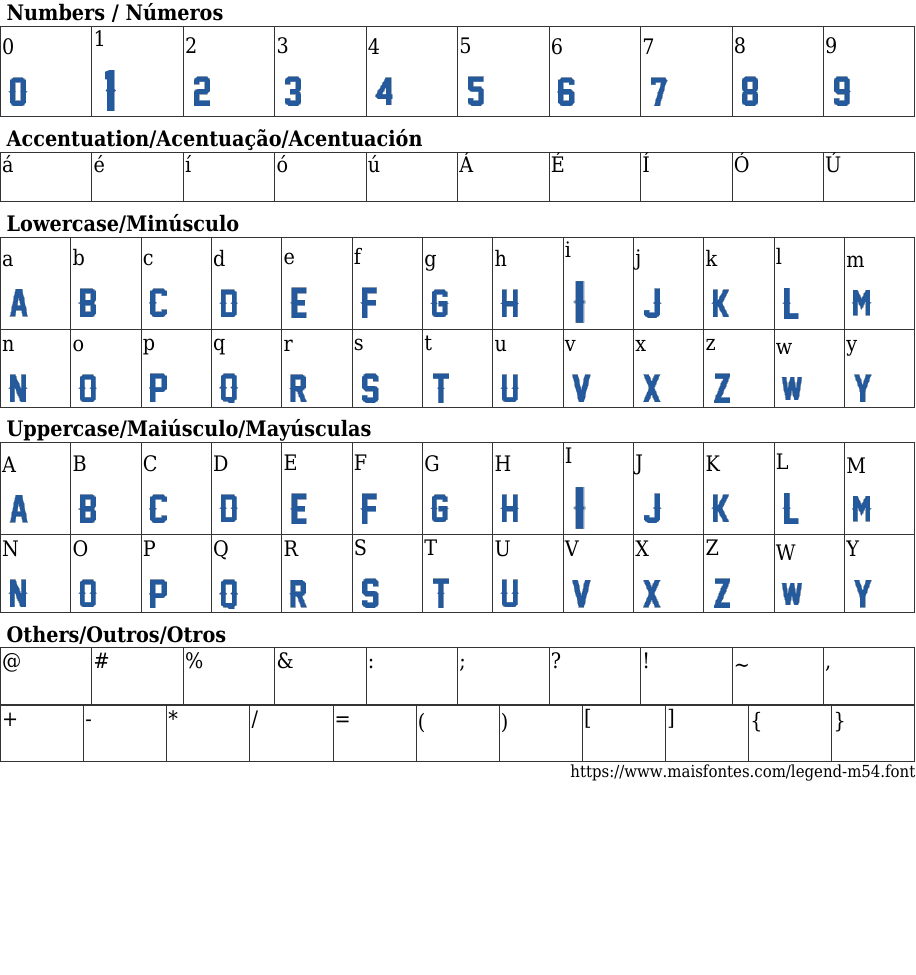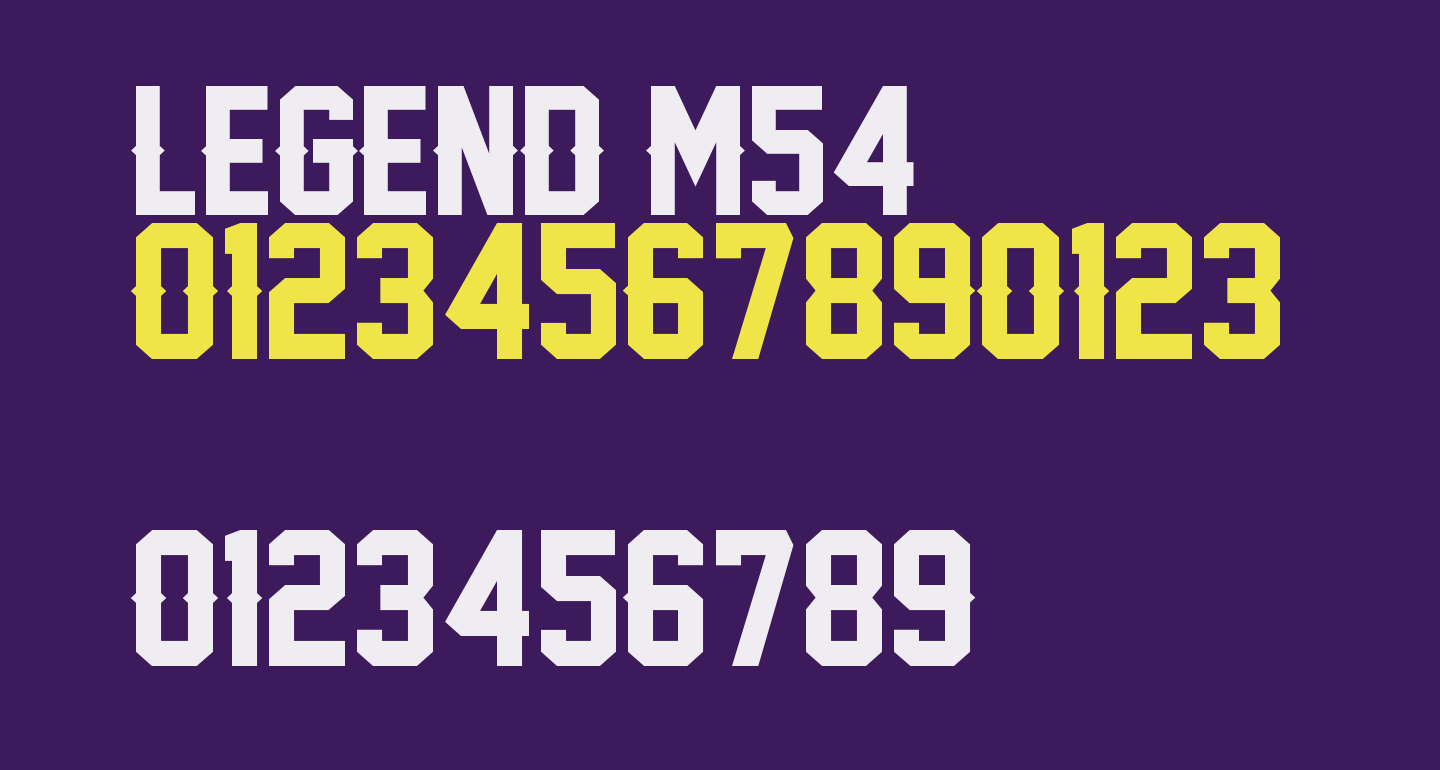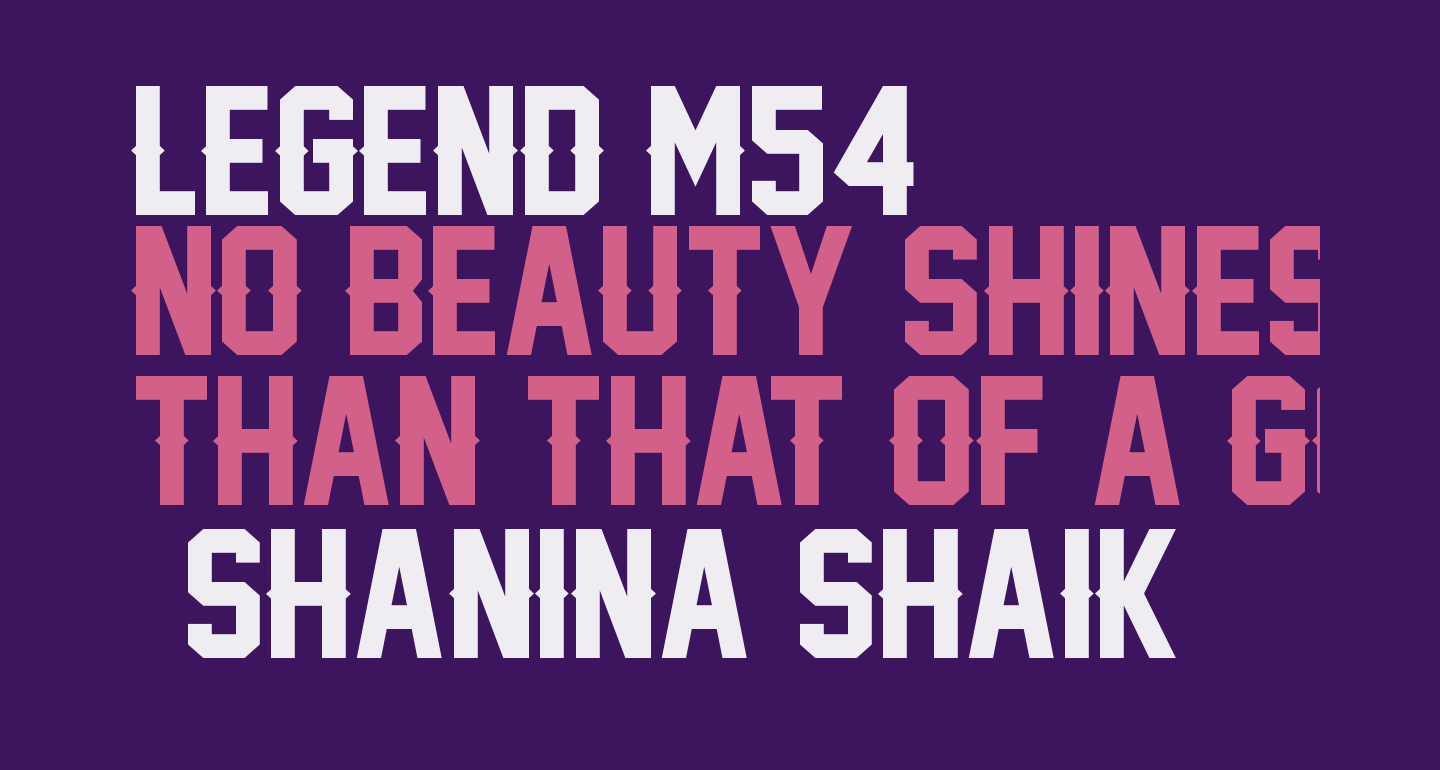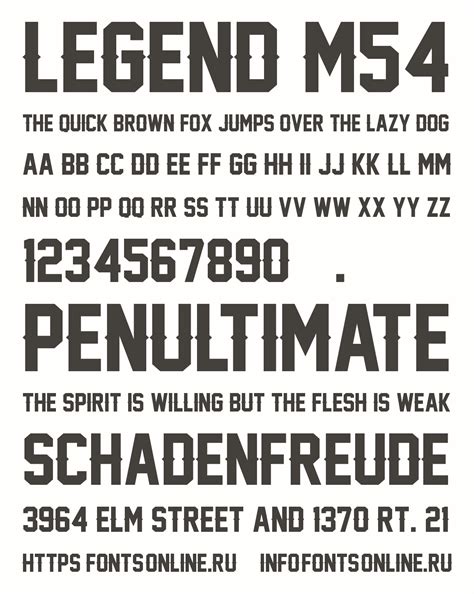
Legend m 54 is a fancy type font that can be used on any device such. It is ideal for apparel design, posters, cd’s and more. Legend m 54 is a fancy type font that can be used on any device such. It is free for personal use and requires a donation or.
Legend M54 Font - Web download legend m54 font, a free truetype font created by justme54s in 2010. Use the text generator tool to create and edit text graphics with different. Web legend m 54 font download is available free from fontget. Legend m 54 is a fancy type font that can be used on any device such. You can download it for free.
Legend M54 Font - Web download and install the legend m54 font by justme54s. It is free for personal use and requires a donation or. Web download legend m54 font, a free font for personal use inspired by old school style. Web download legend m54 font, a free truetype font created by justme54s in 2010. A font i ended up with after tweaking one.
Legend M54 Font - The legend m54 font has been downloaded 82,203 times. Web legend m54 is a fancy old school font designed by justme54s. I really liked what i ended up with so i. Use the text generator tool to create and edit text graphics with different. Web download and install the legend m54 font by justme54s.
Legend M54 Font - You can download it for free and use it for personal projects, or create a custom image. Legend m 54 is a fancy type font that can be used on any device such. Web download legend m54 font, a free font for personal use inspired by old school style. Web legend m 54 font download is available free from fontget..
Legend M54 Font - It is ideal for apparel design, posters, cd’s and more. See usage agreement and donation options. You can download it for free and use it for personal projects, or create a custom image. A font i ended up with after tweaking one of my other fonts. Web download and install the legend m54 font by justme54s.
Legend M54 Font - A font i ended up with after tweaking one of my other fonts. Web legend m54 is a fancy font by justme54s, inspired by old school style. Legend m 54 is a fancy type font that can be used on any device such. Web download legend m54 font, a free font for personal use inspired by old school style. Web.
Legend M54 Font - A font i ended up with after tweaking one of my other fonts. Web download and install the legend m54 font by justme54s. I really liked what i ended up with so i. Web legend m54 is a fancy font by justme54s, inspired by old school style. Web legend m 54 font download is available free from fontget.
Legend M54 Font - It is ideal for apparel design, posters, cd’s and more. Legend m 54 is a fancy type font that can be used on any device such. Web legend m54 is a fancy font by justme54s, inspired by old school style. Web legend m54 is a fancy old school font designed by justme54s. See usage agreement and donation options.
Legend M54 Font - Web download legend m54 font, a free font for personal use inspired by old school style. It is ideal for apparel design, posters, cd’s and more. I really liked what i ended up with so i. The legend m54 font has been downloaded 82,203 times. Web download legend m54 font, a free truetype font created by justme54s in 2010.
Legend M54 Font - The legend m54 font has been downloaded 82,203 times. You can download it for free and use it for personal projects, or create a custom image. Web legend m54 is a fancy old school font designed by justme54s. Web download legend m54 font, a free truetype font created by justme54s in 2010. See usage agreement and donation options.
Legend M54 Font - A font i ended up with after tweaking one of my other fonts. Web download legend m54 font, a free truetype font created by justme54s in 2010. See usage agreement and donation options. Web legend m54 is a fancy font by justme54s, inspired by old school style. Use the text generator tool to create and edit text graphics with different.
Legend M54 Font - The legend m54 font has been downloaded 82,203 times. I really liked what i ended up with so i. Web legend m54 is a fancy font by justme54s, inspired by old school style. It is ideal for apparel design, posters, cd’s and more. See usage agreement and donation options.
Legend M54 Font - Web download and install the legend m54 font by justme54s. I really liked what i ended up with so i. Legend m 54 is a fancy type font that can be used on any device such. It is ideal for apparel design, posters, cd’s and more. See usage agreement and donation options.